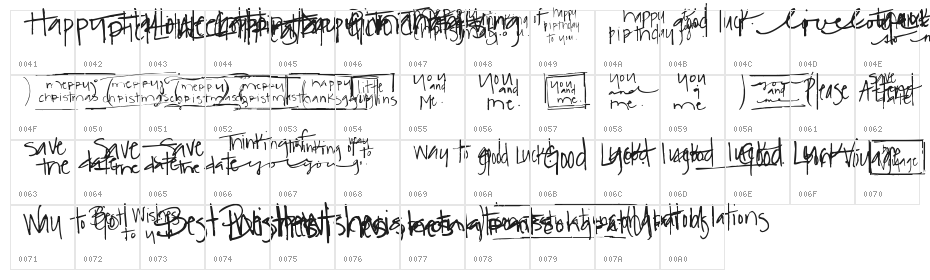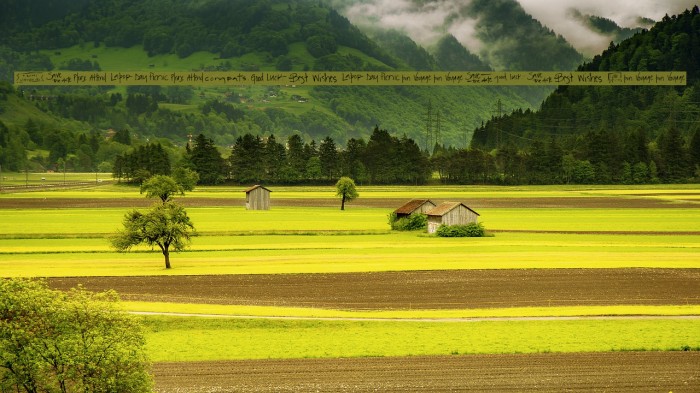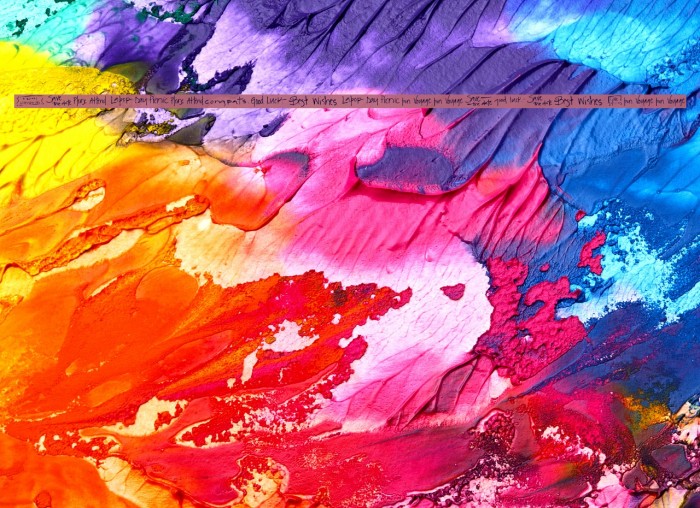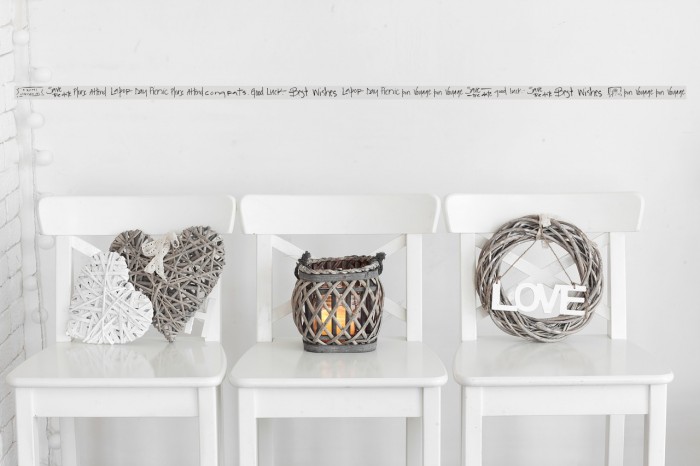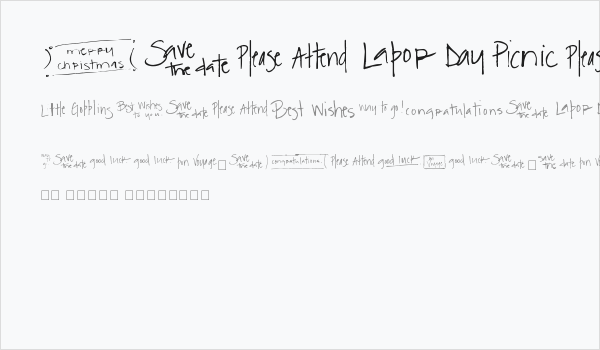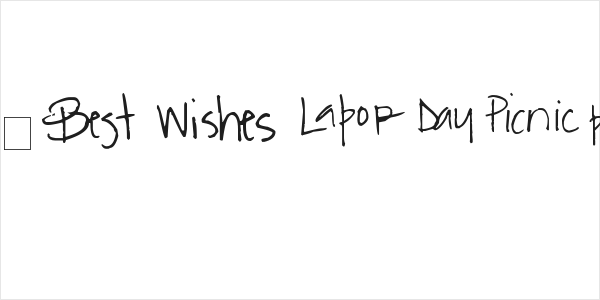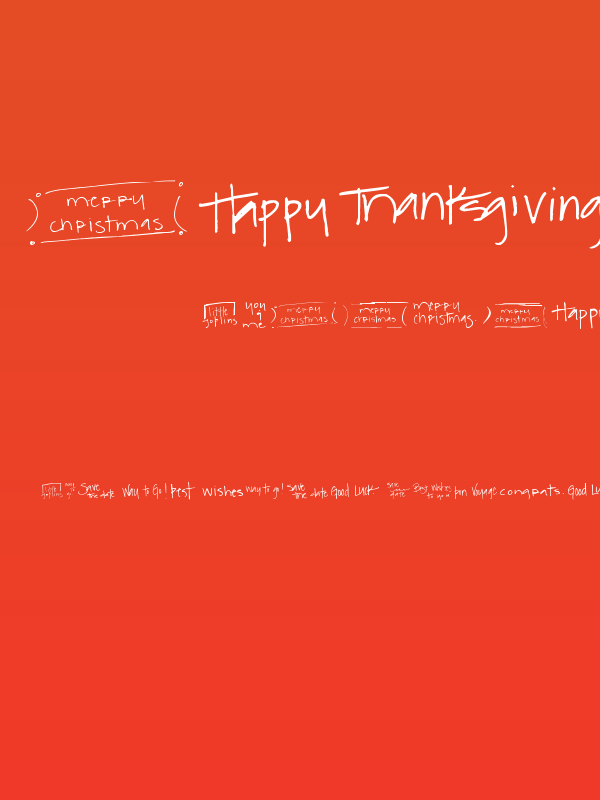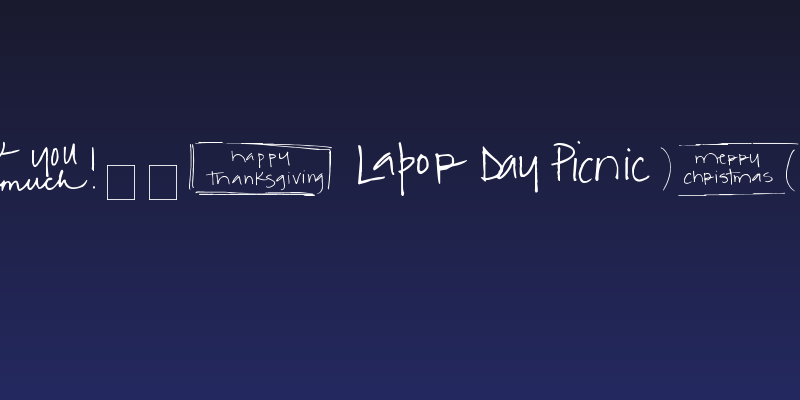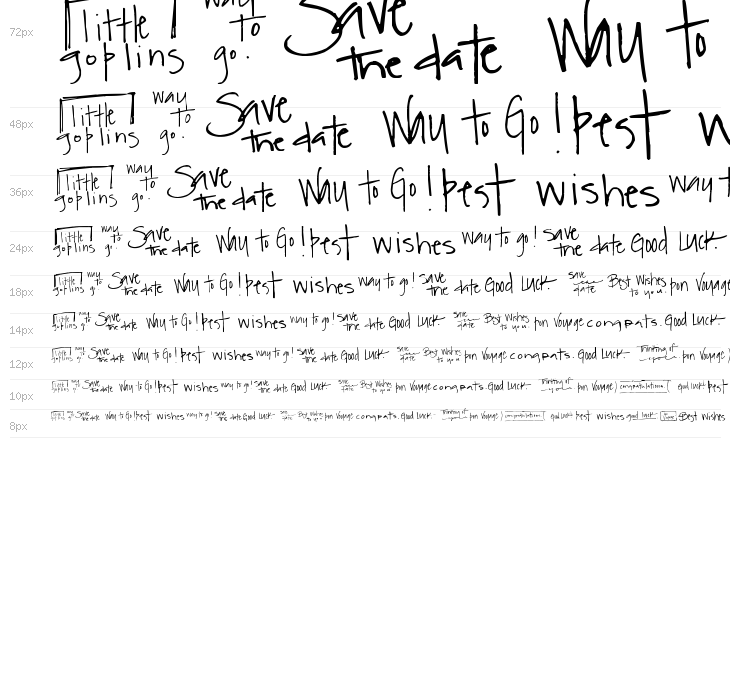
Pea Dawn's Doodles Too Font
Pea Dawn's Doodles Too Description
This font features a playful and whimsical handwritten style, characterized by its casual and informal appearance. The letters are slightly irregular, giving it a personal and friendly touch. The strokes are thin and delicate, with a consistent flow that mimics natural handwriting. This font includes a variety of special characters and symbols, enhancing its versatility for creative projects. Its unique charm makes it suitable for designs that aim to convey warmth and approachability.
| Use Case | Headlines, Personal notes, Creative projects |
| Proposed Projects | Ideal for greeting cards, invitations, personal notes, and creative projects that require a personal touch. |